Here is a quick hand lettering exercise with the word, "Thank you" in it, to show my love to my first 100 followers on Behance. Thank you guys. I have processed the hand lettering to the computer and made some awesomeness too. Please check that out. :) Happy sharing and again, thank you -- as always stay awesome.
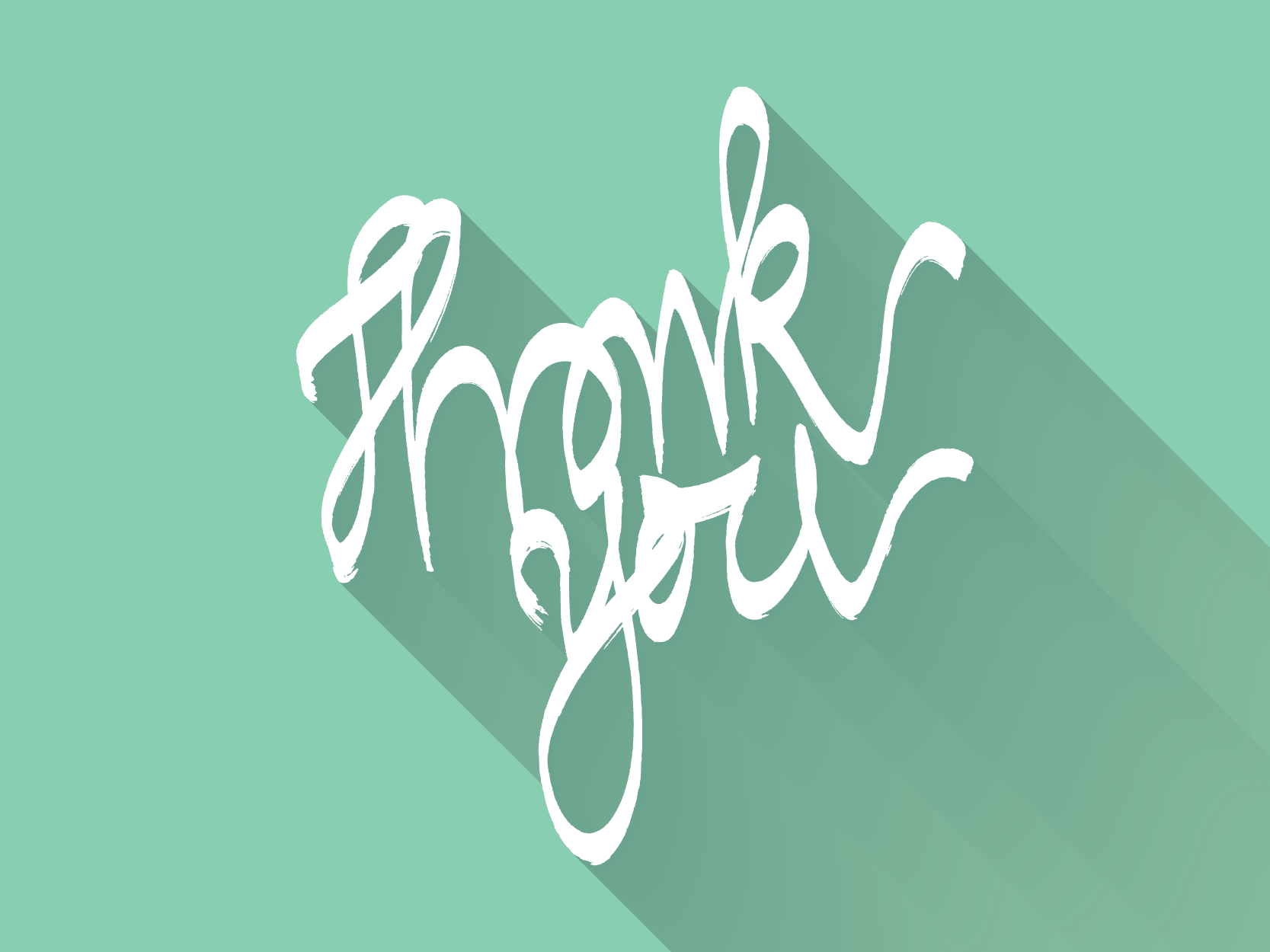
Processed with the flat colour long shadow flavour.
another version of awesomeness.